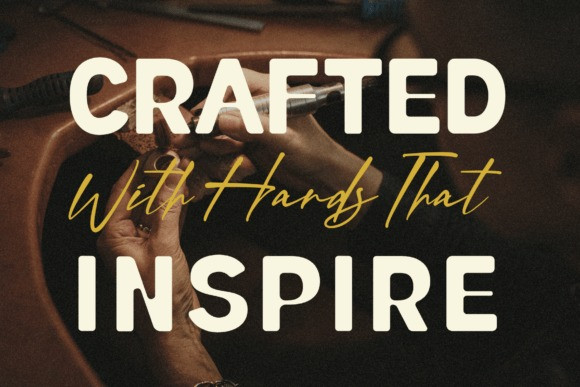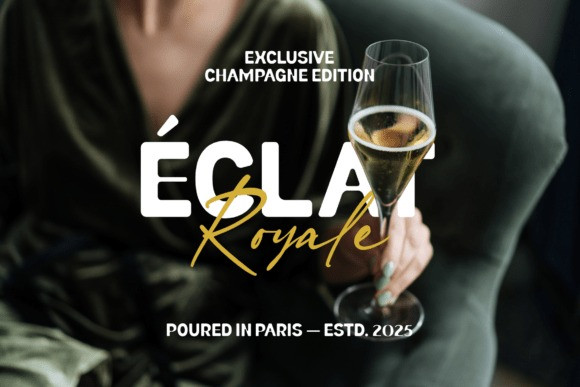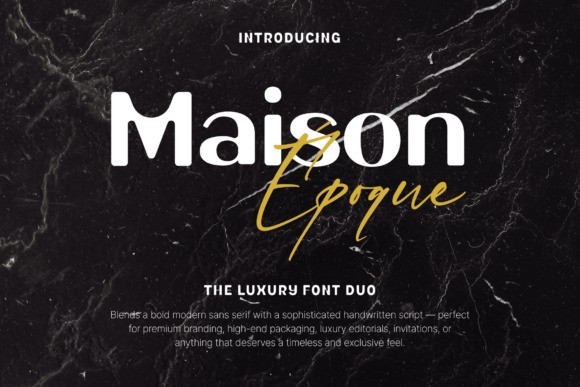
Maison Époque Font Duo
Maison Époque Font Duo, a remarkable fusion of contemporary sans serif and sophisticated handwritten script. Specially crafted to infuse your projects with class and distinction, this versatile pairing strikes the perfect balance between robustness and delicacy. From luxury branding to chic logos, from opulent packaging design to fashion and lifestyle editorials, and from plush wedding invites to promotions for elite perfume, champagne, and boutiques, Maison Époque is ideal for high-end design.
Boasting of two harmonizing styles – Modern Sans Serif and Handwritten Script, it features complete uppercase, lowercase, numerals, and punctuation. With multi-language support, it ensures global reach. The premium kerning and balanced spacing provide professional results with every use.
Maison Époque font is also PUA-encoded, ensuring effortless access to all glyphs, swashes, and alternate characters to help you customize your creations with ease.